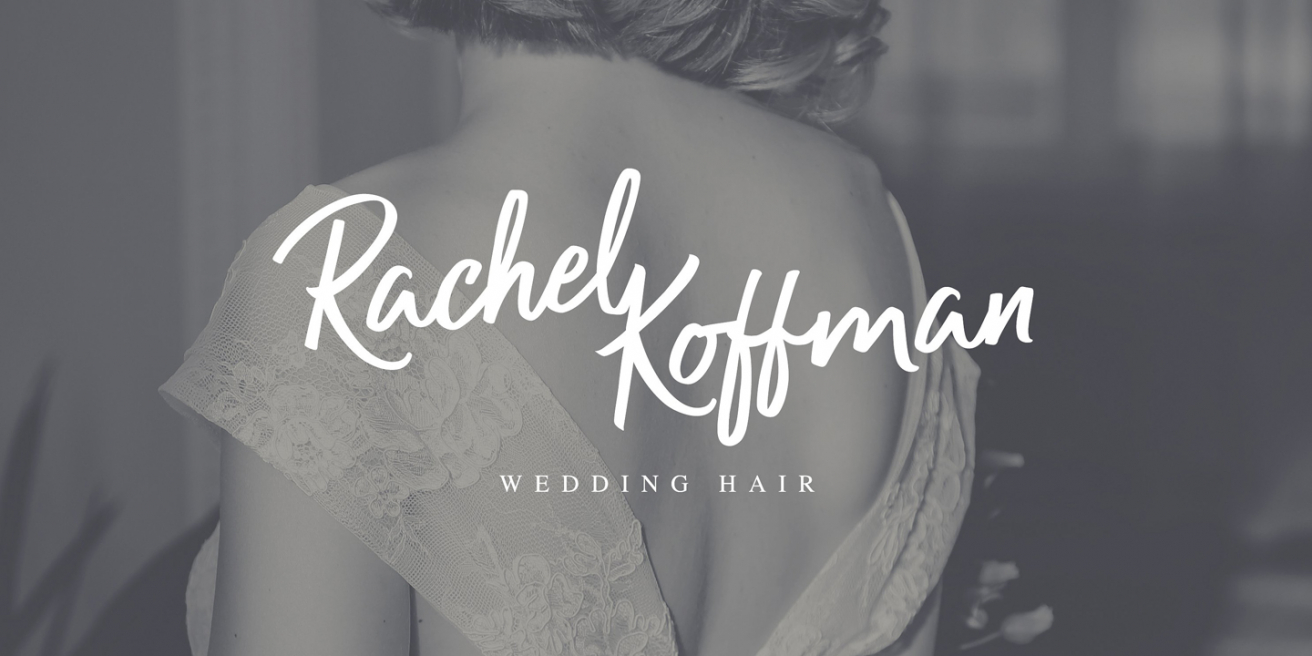
Radiant Beauty - A Font That’s Perfectly Named
Radiant Beauty is a font I am happy to recommend to
any
designer, anywhere. Before I dig into it, I should start with the fact that its regular
First, it’s legible. We often talk about legibility
here, and that’s not going to change anytime soon. Legibility has become a rarer occurrence
in script fonts lately, due in part to modern calligraphy's popularity. In contrast, Radiant
Beauty is very legible, due in part to its design tool - a chisel tip marker. In every
sample image, no matter the background photo or the ligatures utilized, you can always read
the title quickly and easily.
Radiant Beauty is also an all-purpose font, which
is
not a trait usually associated with a script. It is more muted and less flowery in design,
which
lets you fill in the details and determine its style. It works just as well advertising a
wedding company as it does an outdoor clothing brand. The only thing this font says about
your
company is that you value design, and you keep up with modern trends. The rest is up to what
you
bring into the design yourself.
If you’re out looking for a unique font that does
something no other font does, you may be better off searching for other, more exotic fonts
that
fit one specific style. If instead, you need a font that you can fit in anywhere to great
effect, then Radiant Beauty is your best place to start. Or if you have a central theme of
your
design already picked and you need text that you know will work, try Radiant Beauty. Put it
in